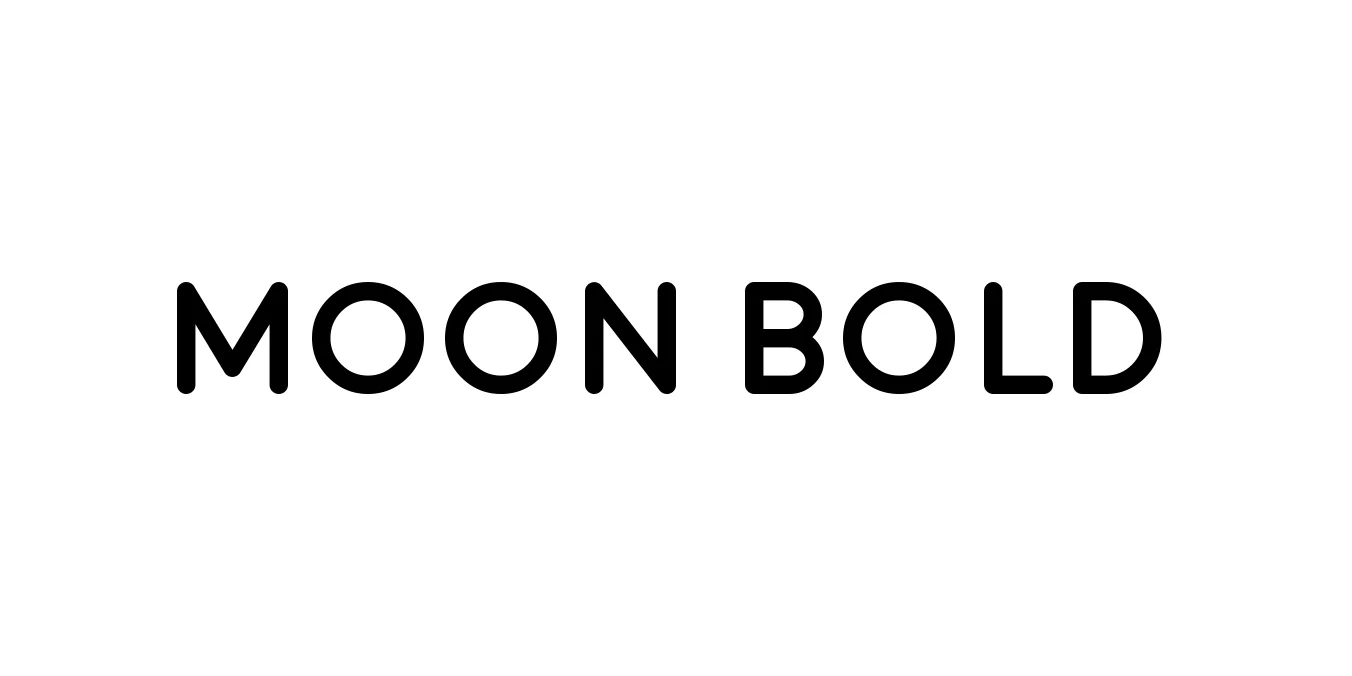
Moon Bold
Designed by Jack Harvatt
Moon Bold is a contemporary sans-serif typeface designed by Jack Harvatt, known for its clean, circular geometry and minimalist aesthetic. This font is a standout member of the Moon family, offering a weighted, high-impact look that balances soft rounded terminals with professional structural integrity.
Widely adopted by the design community, Moon Bold excels in digital environments where legibility and style are equally prioritized. Its versatility makes it an ideal choice for everything from high-end corporate branding to playful mobile application interfaces, ensuring a modern and approachable feel across all media.
Moon Bold Best Uses
Ideal for creating modern, approachable, and memorable brand identities.
Perfect for high-contrast graphics, Instagram stories, and eye-catching posts.
Highly effective for grabbing attention in editorial layouts and web banners.
Ensures excellent legibility and a clean aesthetic for mobile and web interfaces.